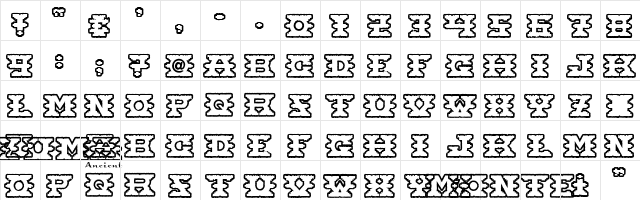
MontezumaAncient Regular Font Preview
MontezumaAncient Regular
MontezumaAncient Regular Font Details
Design Context for MontezumaAncient Typeface
MontezumaAncient is a composed and adaptable typeface that performs quietly and consistently across a wide range of design contexts.